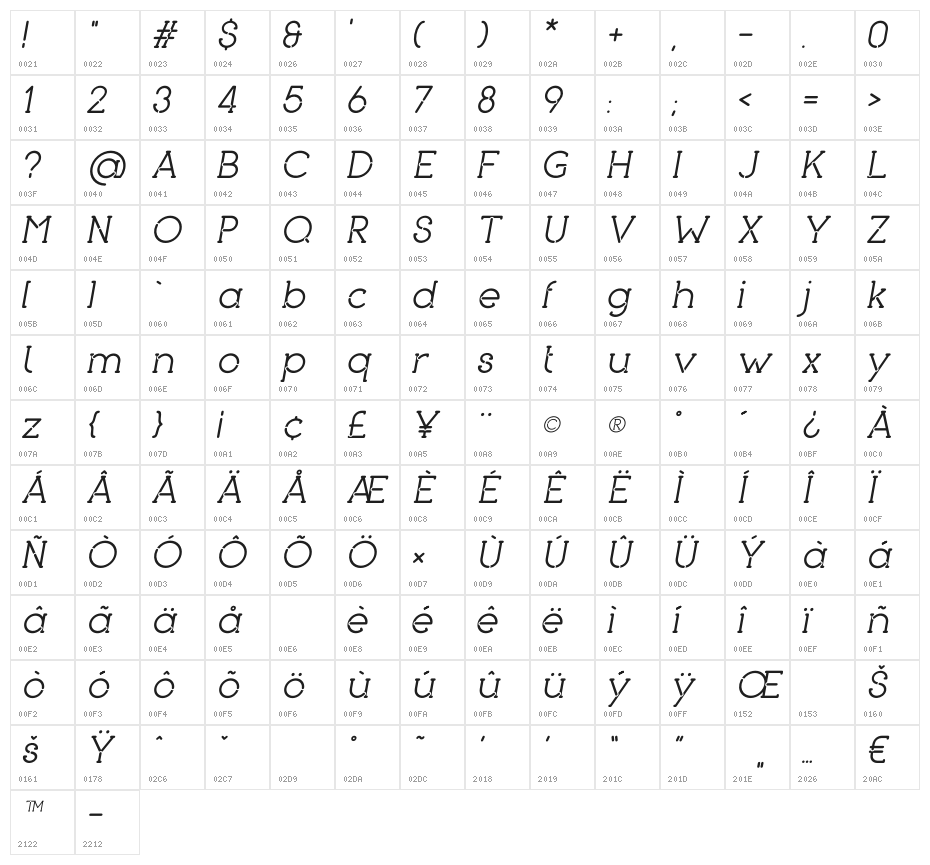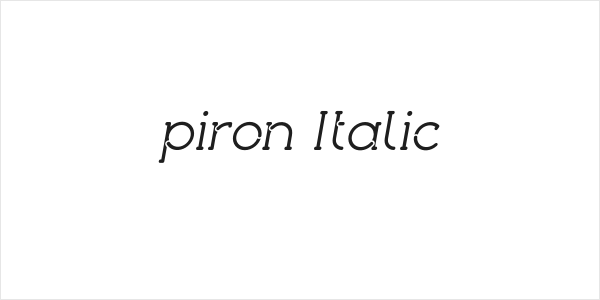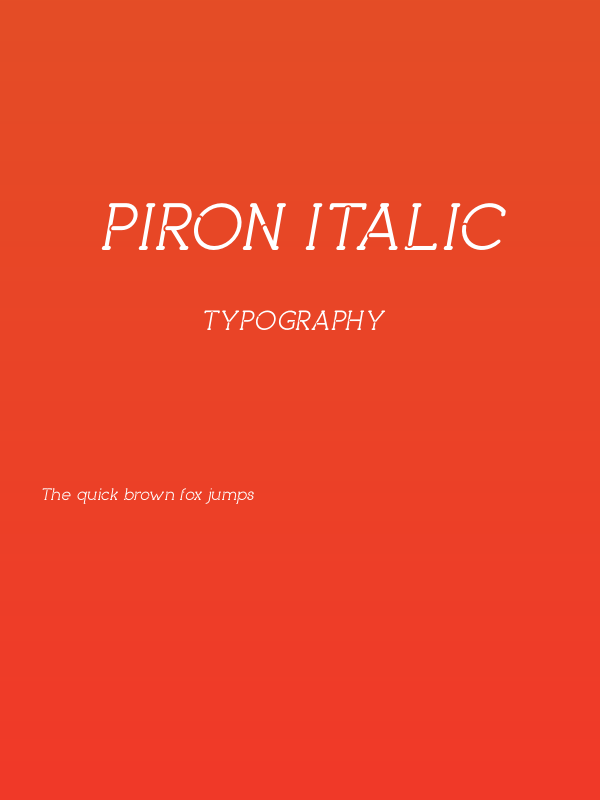
piron Italic Font
piron Italic Description
This font features a modern and sleek italic style with a slight slant, giving it a dynamic and forward-moving appearance. The characters are well-defined with a consistent stroke width, providing a clean and professional look. The uppercase letters are bold and prominent, while the lowercase letters maintain a harmonious balance with a slightly rounded finish. Numbers are clear and easily distinguishable, making them suitable for various applications. The special characters are thoughtfully designed to complement the overall aesthetic, ensuring versatility in design projects.